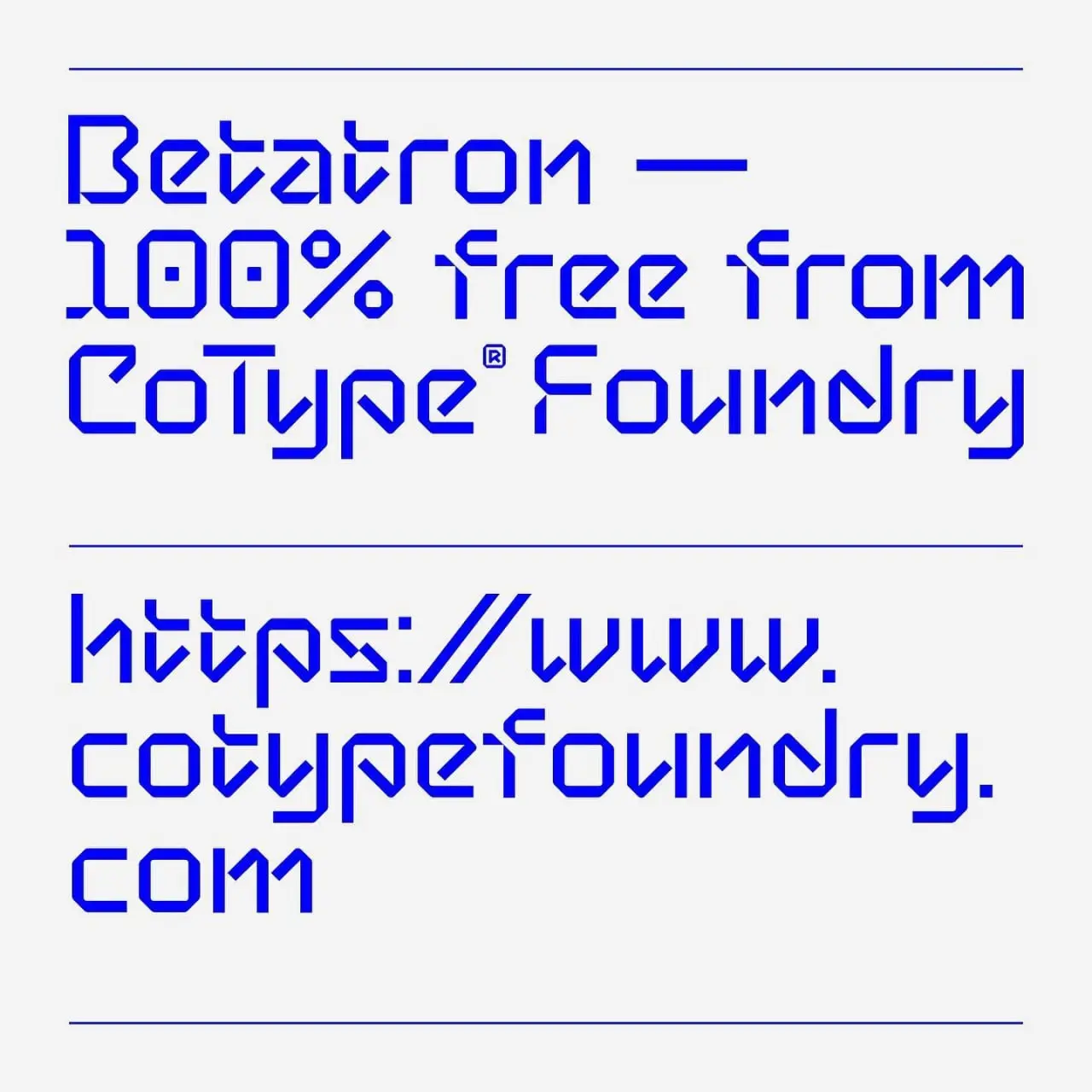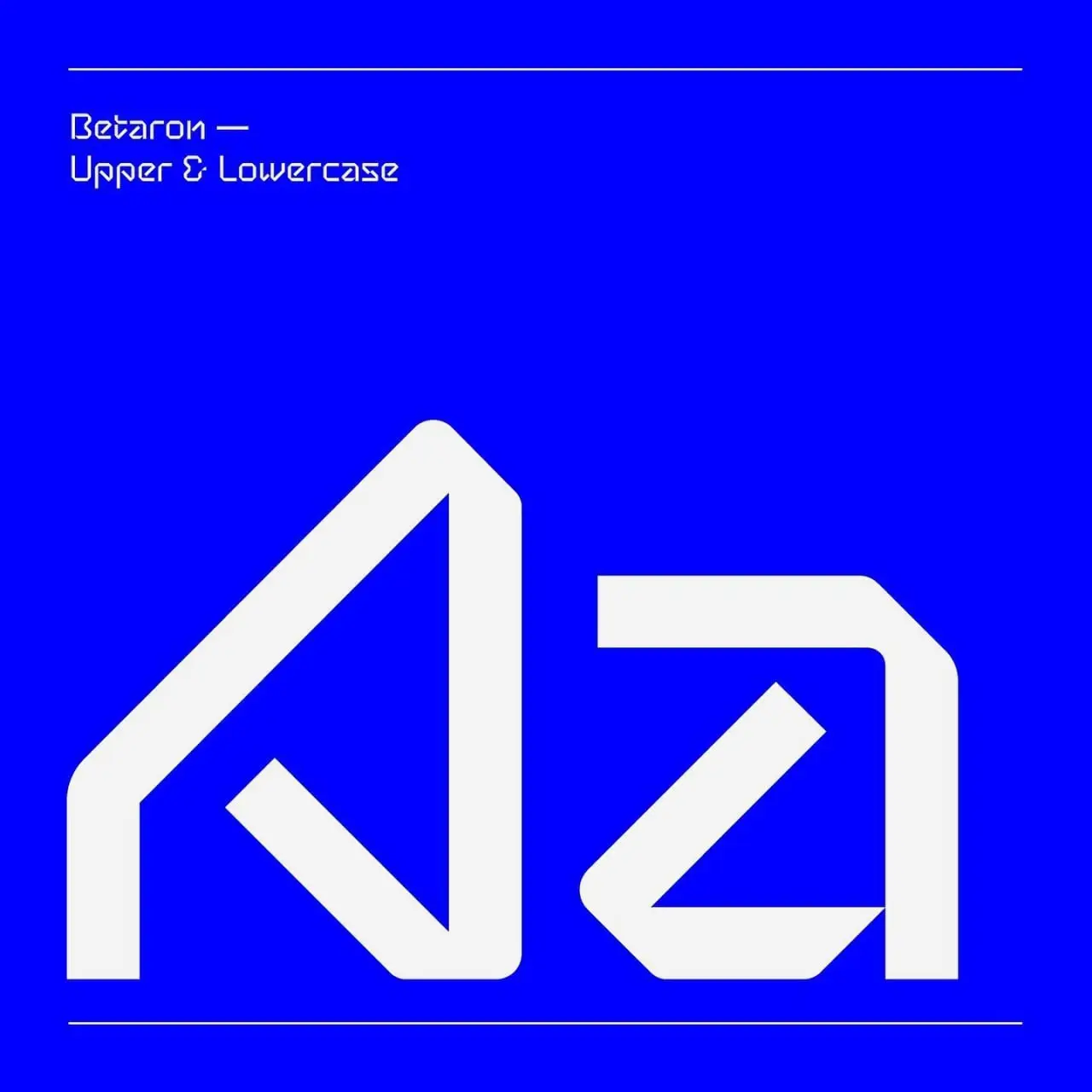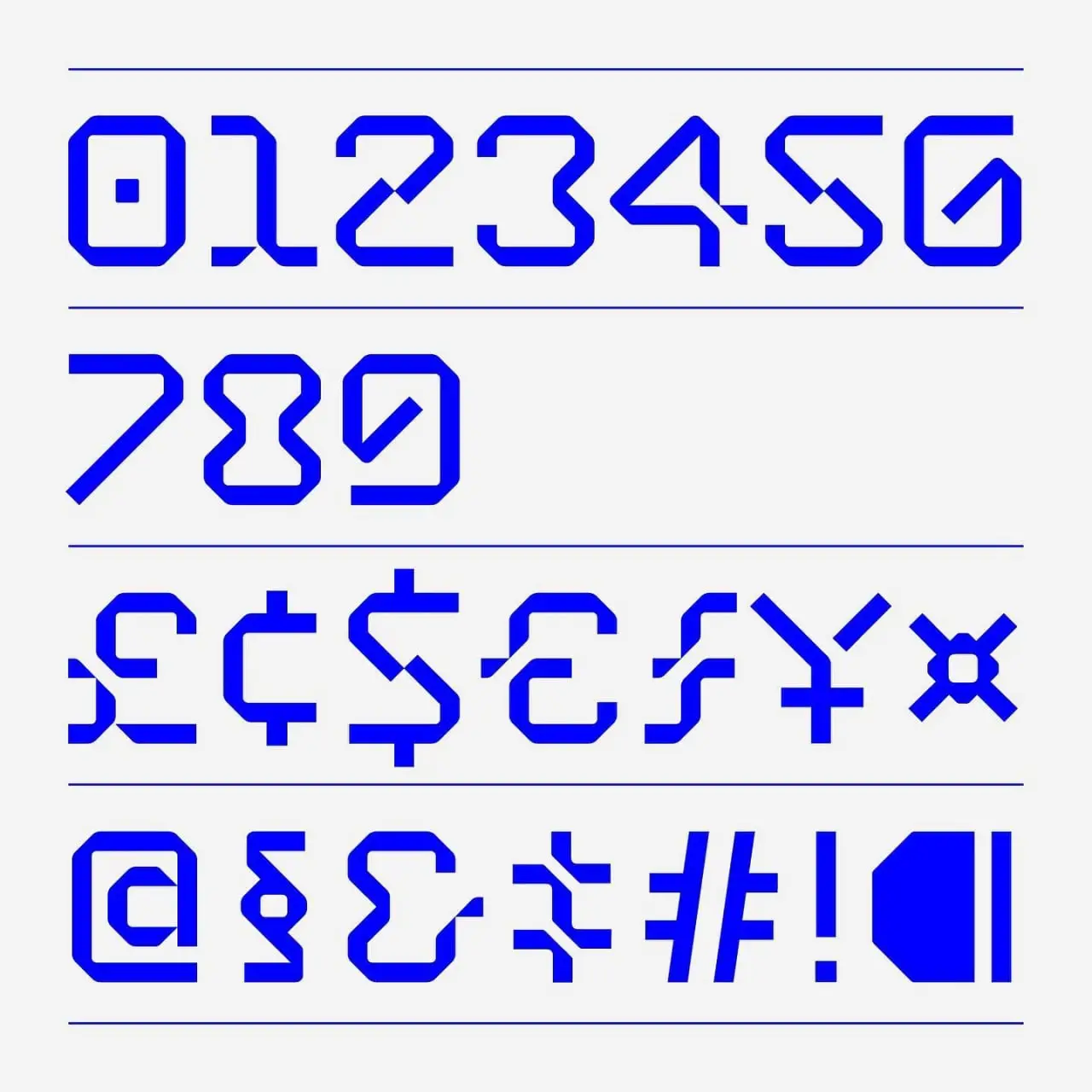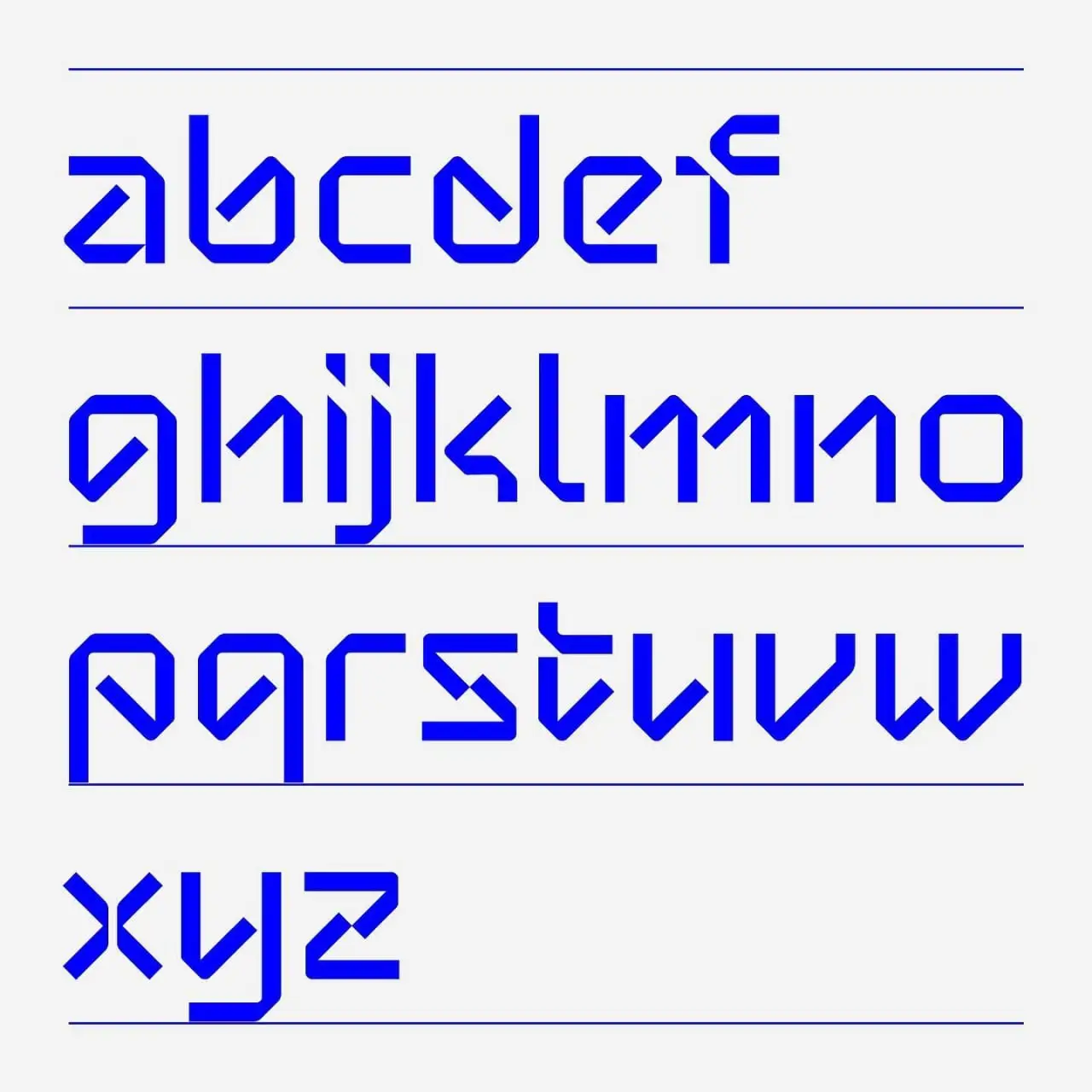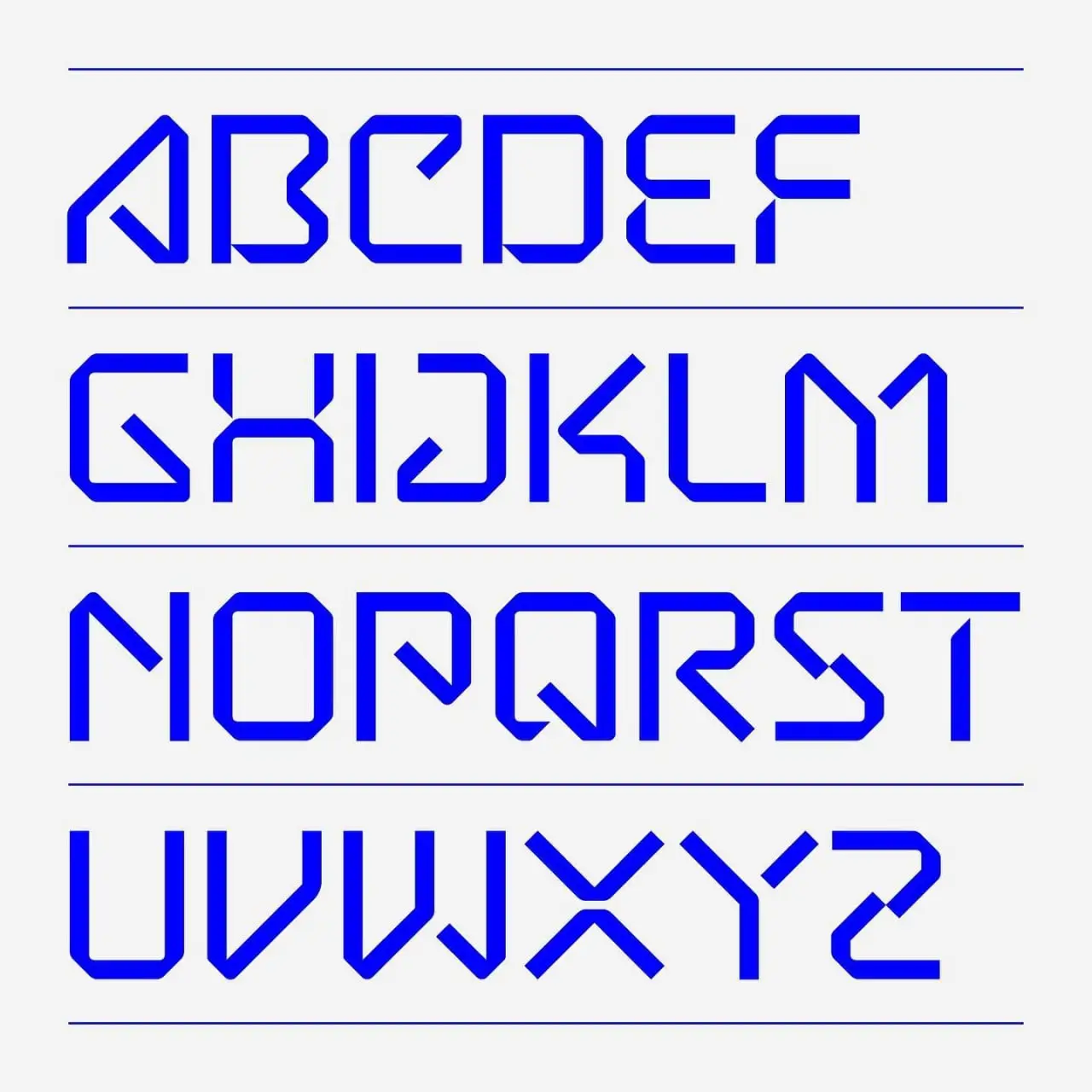
Betatron Font
The Betatron Font is a versatile typeface designed to add a modern touch to your projects. With its clean lines and geometric shapes, this font is perfect for a variety of applications, including branding, logos, web design, and print materials.
• Utilize Betatron for eye-catching headlines and titles.
• Incorporate it into your branding for a cohesive look.
• Experiment with different weights for emphasis in your designs.